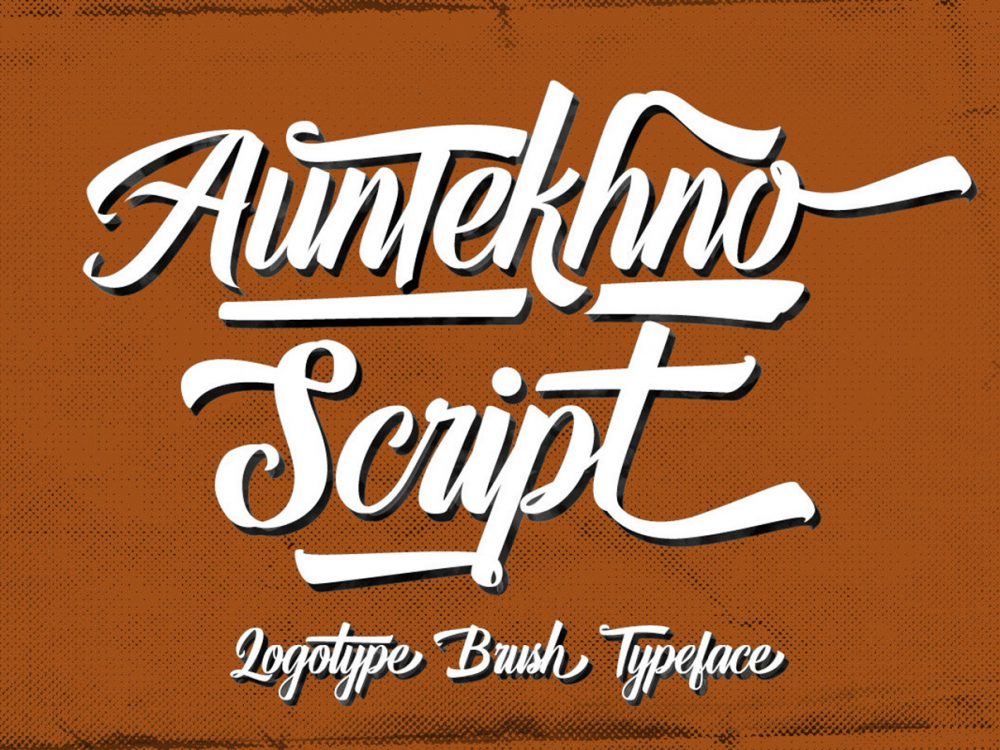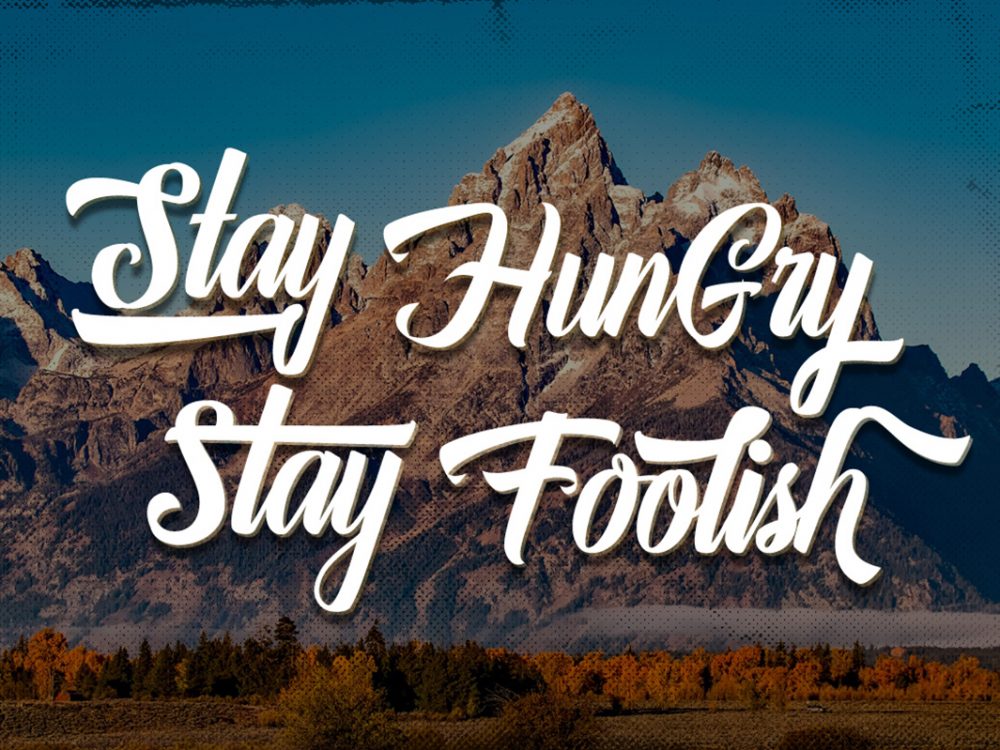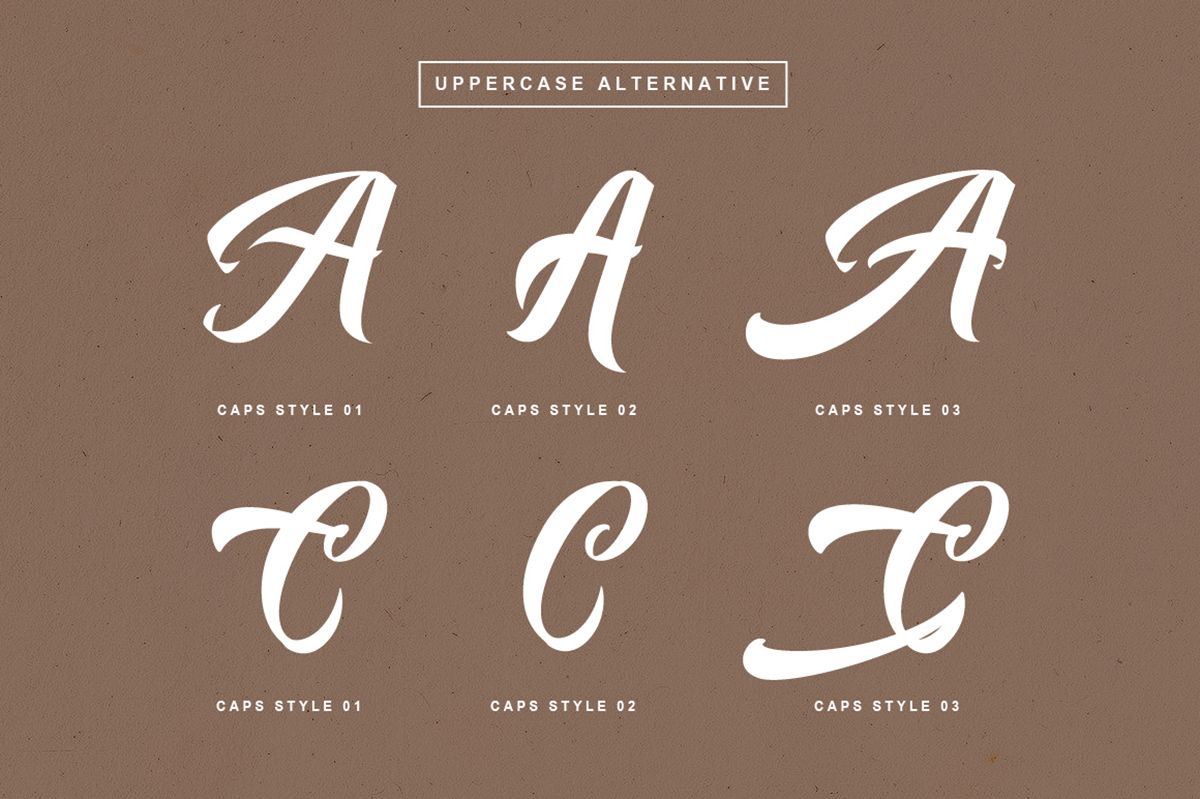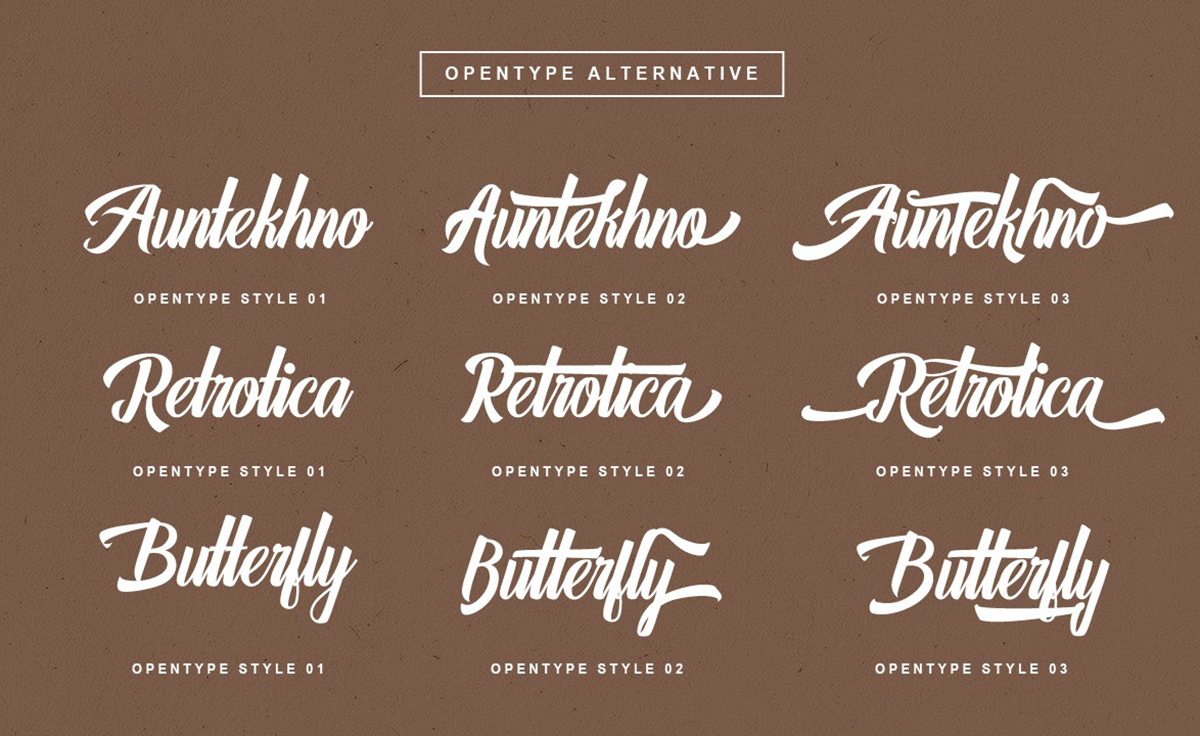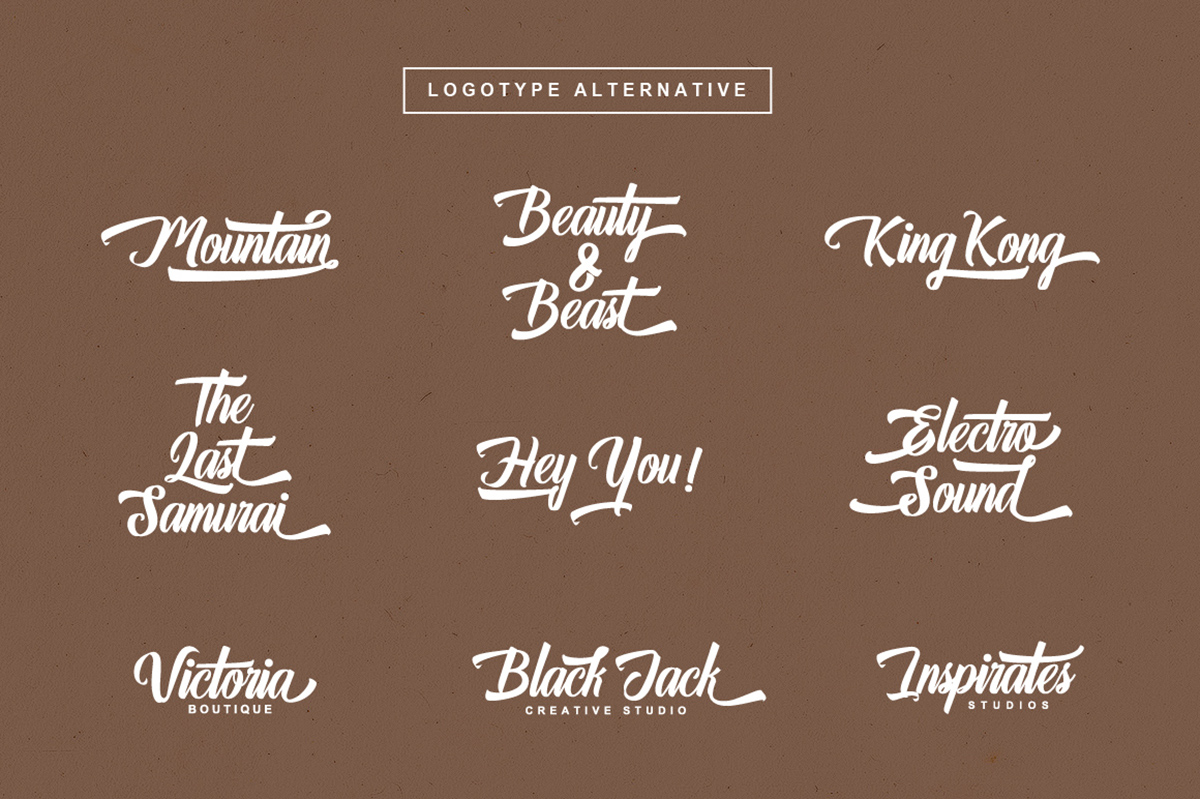
Auntekhno Script Free Font
Auntekhno Script Free Font is a scripted handwritten font that mimics brush writing and has an elegant style. This font is suitable for creating various design projects. You can use this font to create memorable posters, wedding invitations, cards, branding, flyers, and more. Improve the quality and increase the popularity of your design projects by using this font. If you like it don’t forget to check out the full version.